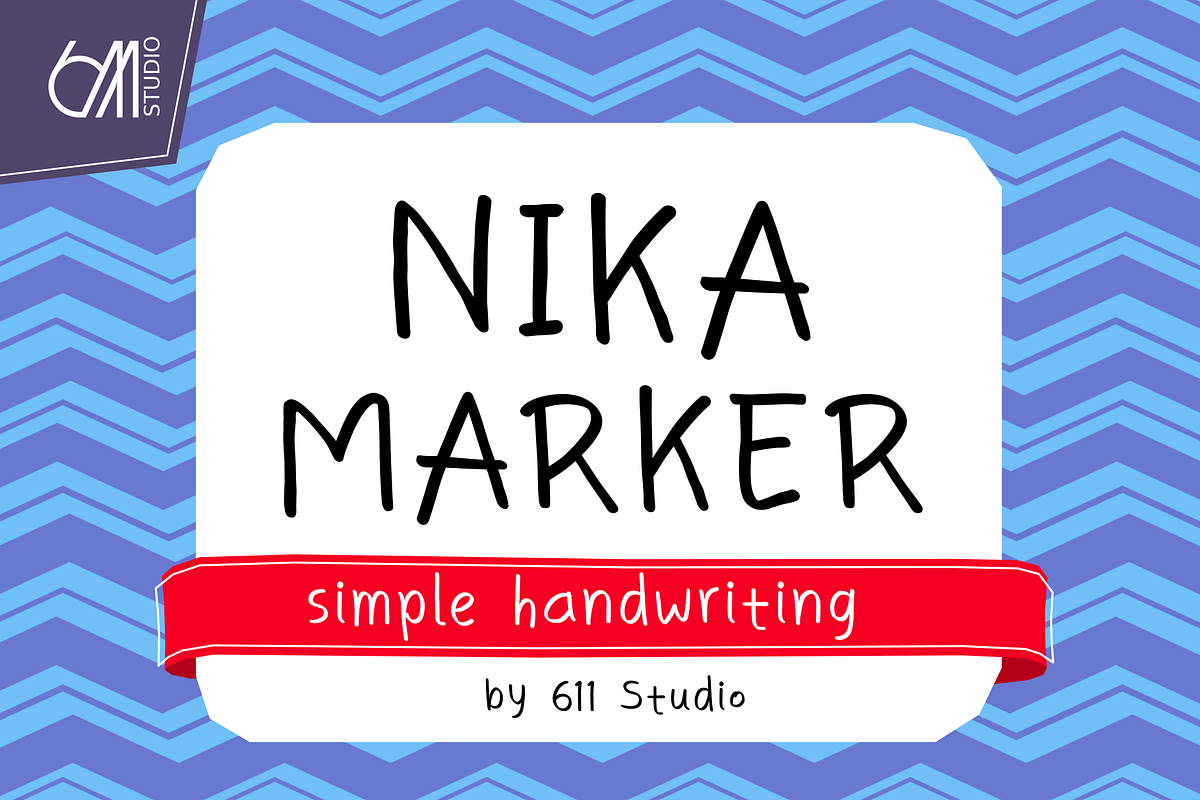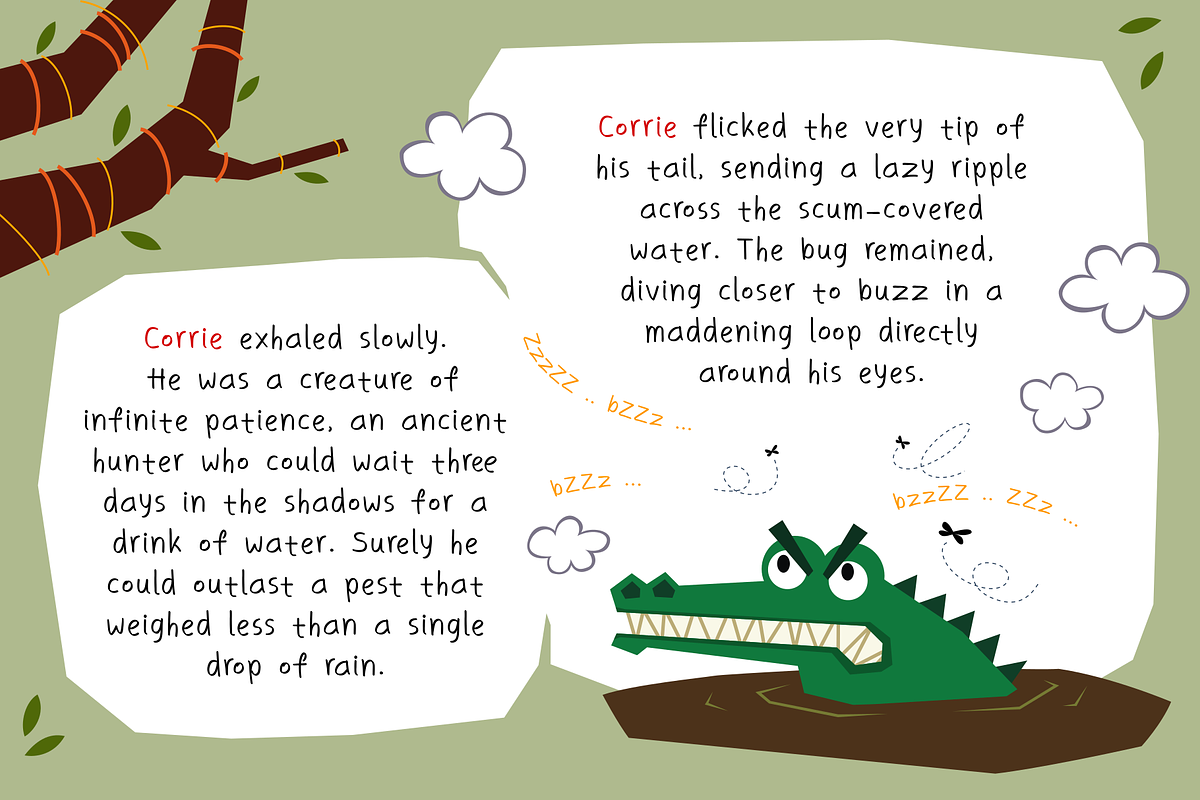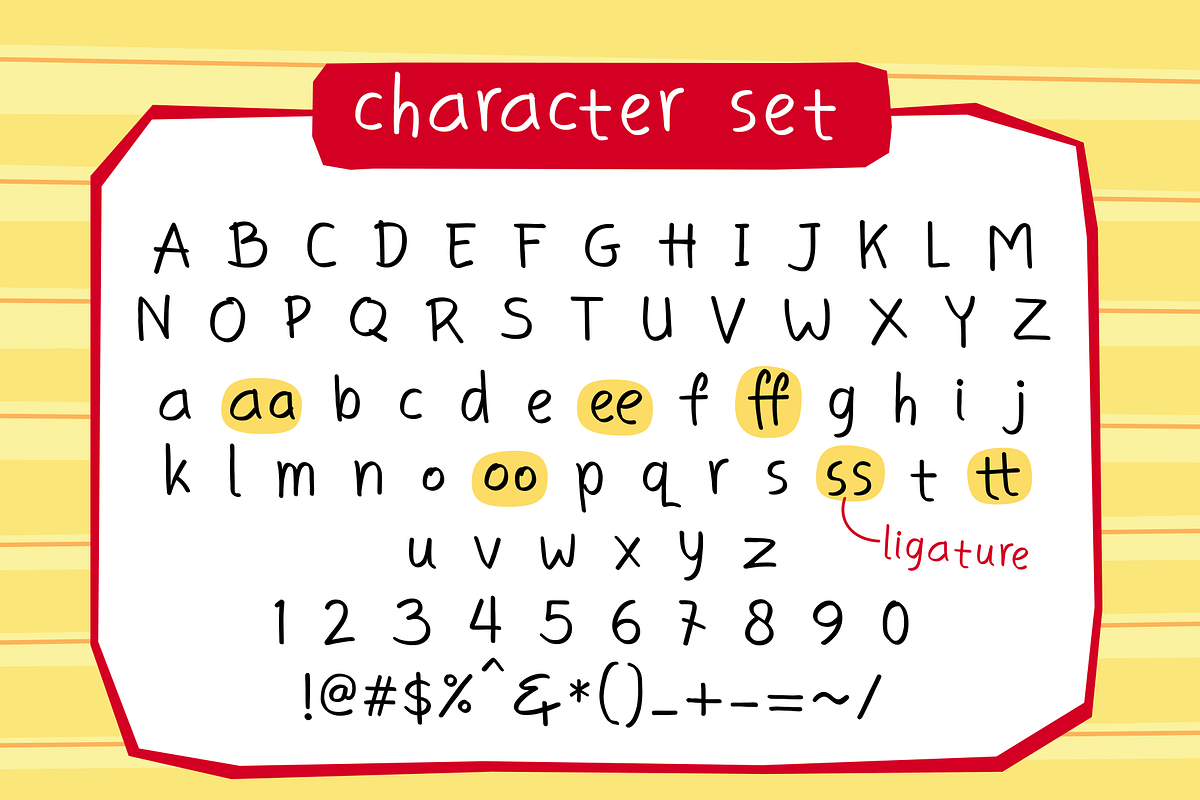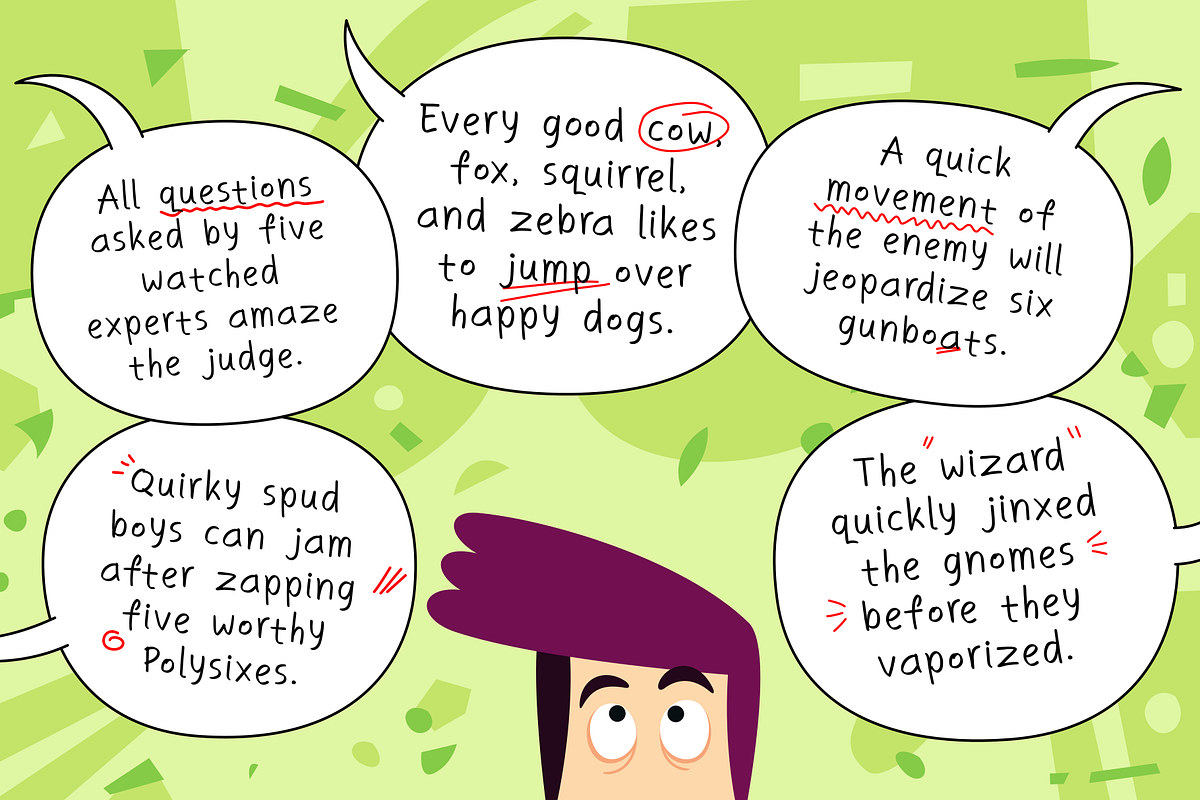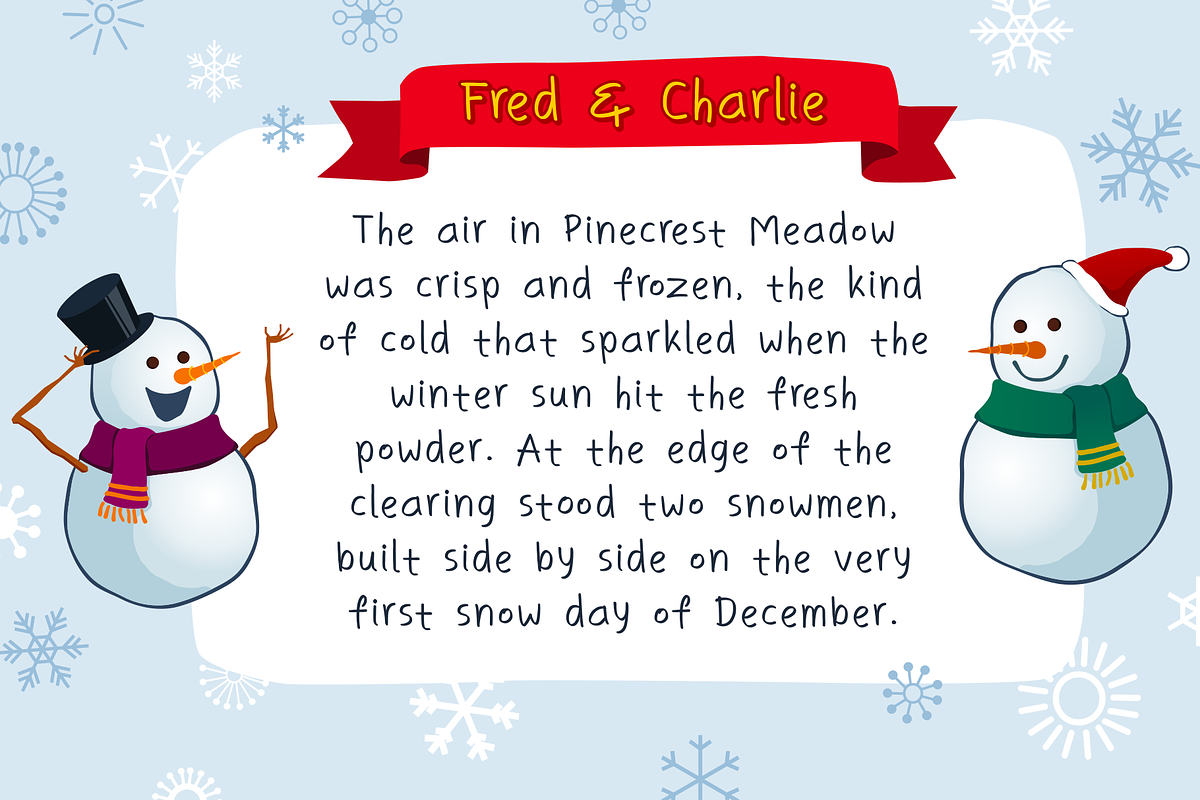
Nika Marker
Introducing a minimalist, slender handwriting font crafted for exceptional readability that flawlessly merges a personal touch with functional legibility. This font is designed to redefine the handwriting genre, transforming normally hard-to-read text into something exceedingly digestible, even across multiple lines of script. Forget the eye strain associated with decorative script fonts; this font's matchless regularity in letterforms, open counters, and equal stroke weight arrange for smooth reading in dense blocks of text. It optimizes clarity and individual character separation through deliberate letter spacing and unique letter silhouettes, keeping ambiguous characters recognizable, even in smaller scales. It's not just about functionality though; this font's subtly uneven line variations provide a delightful organic quality, effortlessly splashing warmth and authenticity onto any written piece. Perfect for bringing a handwritten aesthetic to personal journals, blog posts, notes, and even casual branding endeavors.